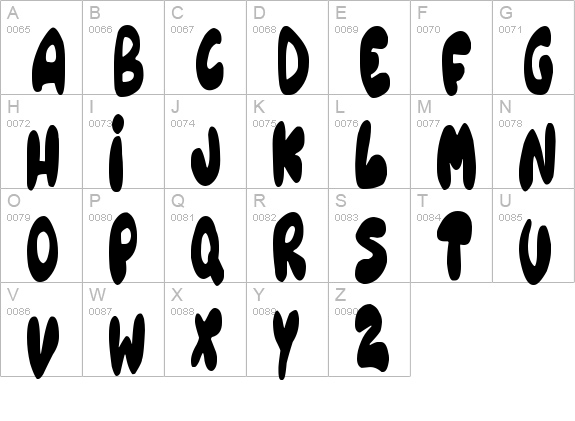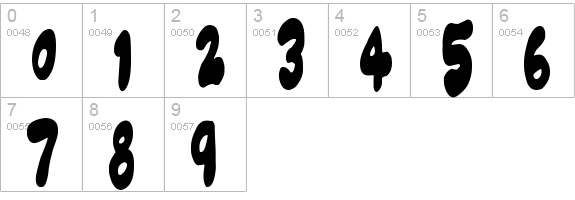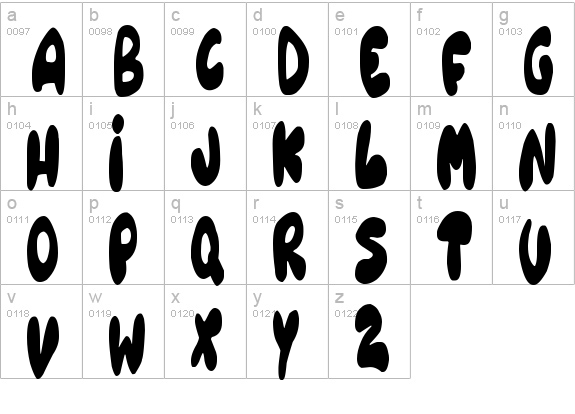
Balloonish Font Details
Balloonish is a free for personal use font in the Fancy > Comic category, designed by Darrell Flood. It has been downloaded 47 times and is available for Windows, Mac and Linux.
Balloonish font is a charming and whimsical typeface that exudes a playful and fun vibe. Reminiscent of colorful balloons floating in the sky, this font is perfect for adding a touch of joy and lightheartedness to your designs. Its rounded edges and bubbly shapes give off a cheerful and welcoming feel, making it ideal for children's books, party invitations, and any project that calls for a touch of whimsy.